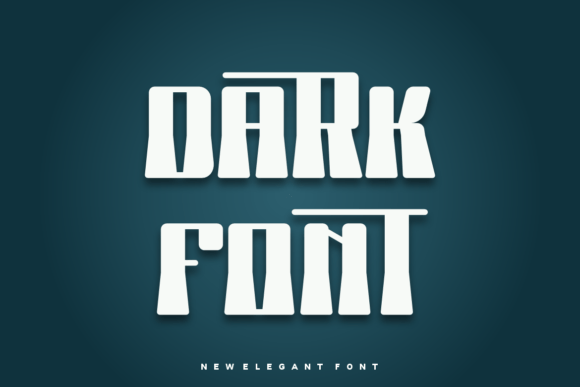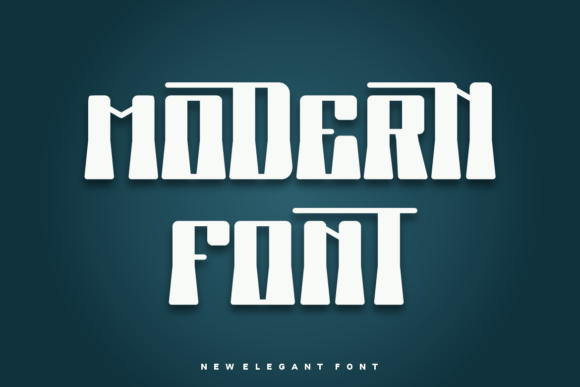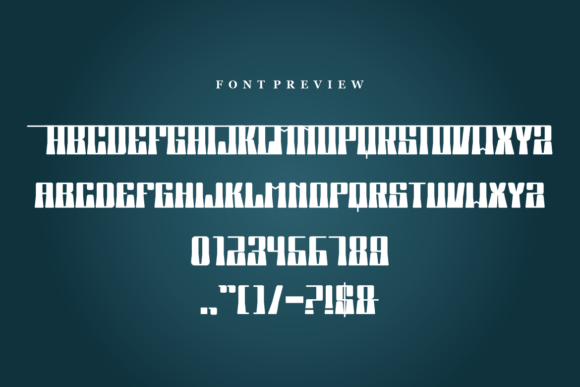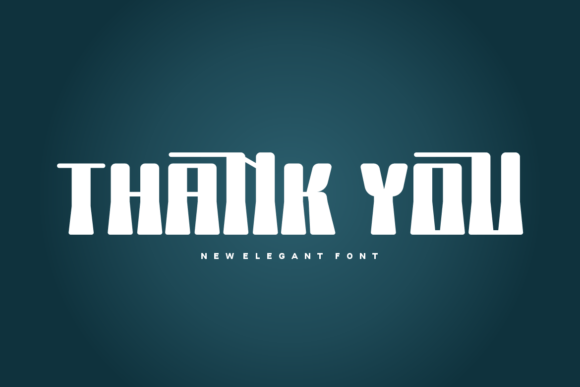
Unleash Your Creativity with Dead Sentral Font: A Modern Display Font
In the world of typography, fonts play a crucial role in conveying messages, expressing emotions, and creating a lasting impression. For designers, crafters, and branding enthusiasts, finding the perfect font can be a daunting task. However, if you’re looking for a bold and authentic display font that can elevate your branding projects, look no further than Dead Sentral Font. In this article, we’ll explore the features, benefits, and uses of Dead Sentral Font, and why it’s a must-have for any creative project.
What is Dead Sentral Font?
Dead Sentral Font is a modern display font designed to make a statement. Its bold and authentic style makes it perfect for creating eye-catching logos, t-shirt prints, and other branding materials. The font’s unique design ensures that it stands out in a wide range of contexts, from digital platforms to print materials.
Key Features of Dead Sentral Font
- Bold and Authentic Style: Dead Sentral Font boasts a bold and authentic style that commands attention and makes a lasting impression.
- Versatility: The font is suitable for various branding projects, including logos, t-shirt printing, posters, and more.
- Easy to Read: Despite its bold style, Dead Sentral Font is easy to read, making it perfect for headlines, titles, and short texts.
- High-Quality Design: The font features a high-quality design with clean lines and precise curves, ensuring that it looks great in any context.
Benefits of Using Dead Sentral Font
Using Dead Sentral Font in your branding projects offers several benefits, including:
- Unique Identity: The font’s bold and authentic style helps create a unique identity for your brand, setting it apart from competitors.
- Professional Look: Dead Sentral Font gives your branding materials a professional look, making them more credible and trustworthy.
- Flexibility: The font’s versatility allows you to use it across various platforms, from digital media to print materials.
- Time-Saving: With Dead Sentral Font, you can create stunning branding materials quickly and efficiently, saving you time and effort.
Use Cases for Dead Sentral Font
Dead Sentral Font is suitable for a wide range of branding projects, including:
- Logo Design: Create a bold and memorable logo that represents your brand’s identity.
- T-Shirt Printing: Design eye-catching t-shirts that make a statement with Dead Sentral Font.
- Poster Design: Create stunning posters that grab attention with the font’s bold and authentic style.
- Branding Materials: Use Dead Sentral Font in brochures, flyers, and other branding materials to create a consistent look.
Tips for Using Dead Sentral Font
To get the most out of Dead Sentral Font, follow these tips:
- Use it Boldly: Dead Sentral Font is designed to make a statement, so use it boldly to grab attention.
- Experiment with Colors: Try pairing Dead Sentral Font with different colors to create a unique look that represents your brand.
- Keep it Simple: Don’t overcomplicate your design with too many elements – keep it simple and let Dead Sentral Font shine.
In conclusion, Dead Sentral Font is a modern display font that offers a bold and authentic style perfect for branding projects. Its versatility, ease of use, and high-quality design make it a must-have for designers, crafters, and branding enthusiasts. Whether you’re creating logos, t-shirt prints, or posters, Dead Sentral Font is sure to elevate your designs and make a lasting impression.